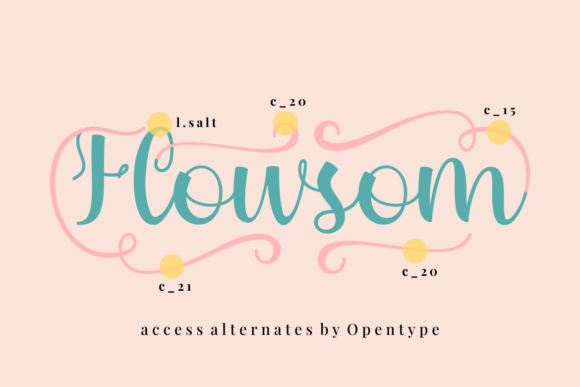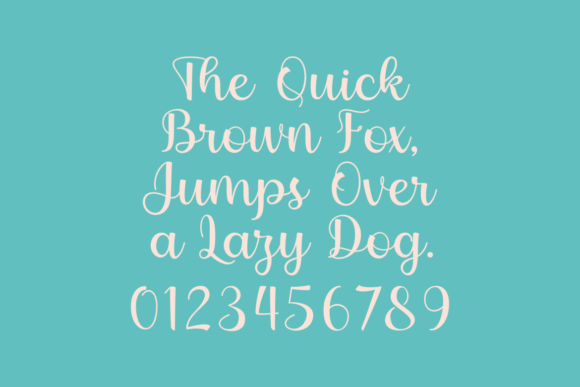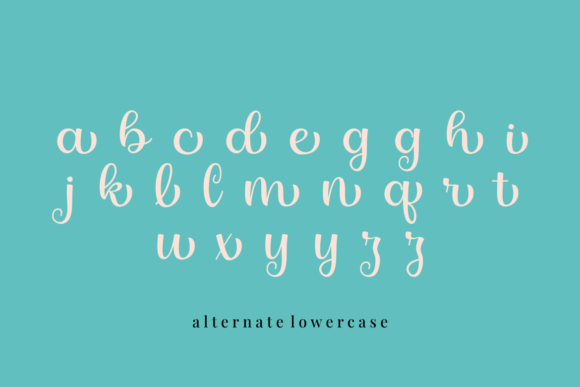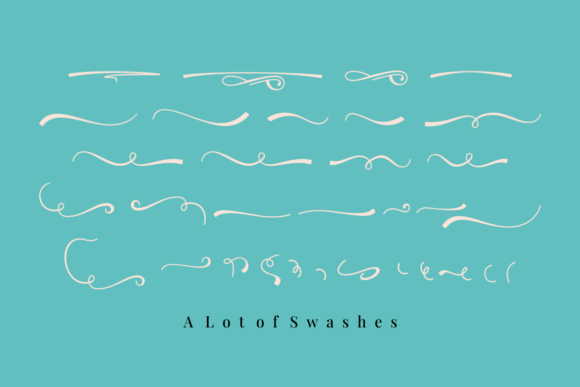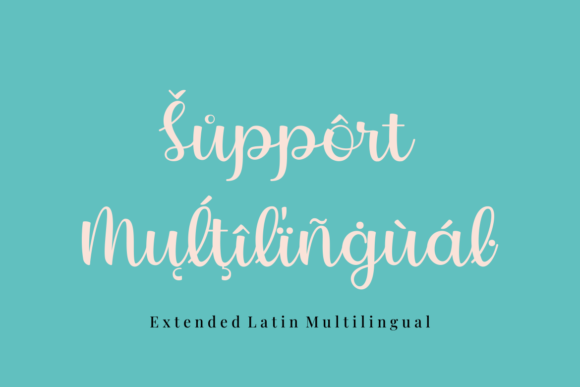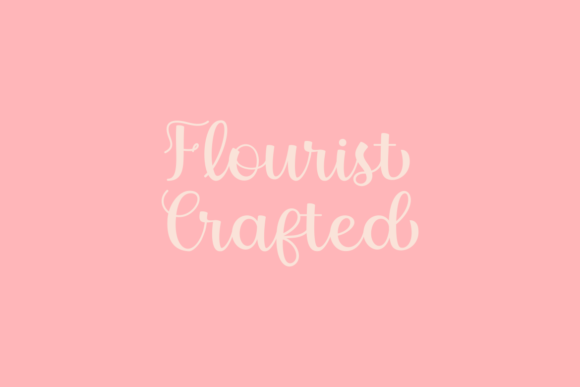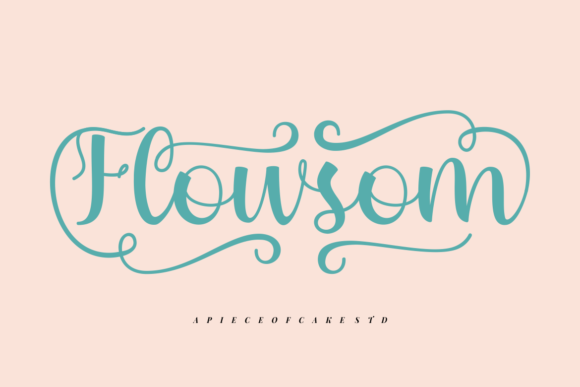
Introducing Flowsom Font: Elevate Your Designs with Elegant Script
In the world of typography, a font can make or break a design. For designers and crafters seeking to add a touch of sophistication and elegance to their projects, Flowsom Font is an exceptional choice. This beautiful script font, inspired by timeless classic calligraphy, brings a contemporary atmosphere and impeccable form to the table, making it perfect for a wide range of applications.
The Inspiration Behind Flowsom
Flowsom Font draws its inspiration from the classic calligraphy of the past, yet presents it with a modern twist. The result is a font that exudes elegance and refinement, making it suitable for designs that require a high level of sophistication. Whether you’re working on a branding project, packaging, or stationery, Flowsom Font is sure to impress.
Key Features of Flowsom Font
- PUA Encoding: One of the standout features of Flowsom Font is its PUA (Private Use Area) encoding. This means that accessing all the glyphs and swashes is incredibly easy, giving you the flexibility to experiment with different styles and variations.
- Elegant Script: The font’s script style is both elegant and contemporary, making it perfect for designs that require a touch of sophistication.
- Impeccable Form: Each letterform in Flowsom Font has been carefully crafted to ensure that it is not only beautiful but also highly legible.
- Contemporary Atmosphere: Despite being inspired by classic calligraphy, Flowsom Font has a distinctly modern feel, making it suitable for a wide range of design applications.
Use Cases for Flowsom Font
Flowsom Font’s versatility makes it suitable for a variety of design projects, including:
- Branding and Logos: Create a lasting impression with a logo that exudes elegance and sophistication.
- Stationery and Packaging: Add a touch of refinement to your stationery, packaging, or product labels.
- Web Design: Use Flowsom Font to create stunning website headers, titles, or quotes that will leave a lasting impression on your visitors.
- Digital Art and Crafting: For crafters and digital artists, Flowsom Font can be used to add a touch of elegance to digital art, planners, or journals.
Tips for Getting the Most Out of Flowsom Font
To maximize the potential of Flowsom Font, consider the following tips:
- Experiment with Swashes: Take advantage of the font’s PUA encoding to experiment with different swashes and glyphs, adding a unique touch to your designs.
- Mix and Match: Don’t be afraid to combine Flowsom Font with other fonts to create a unique and visually appealing design.
- Pay Attention to Legibility: While Flowsom Font is highly legible, ensure that your design choices don’t compromise readability.
| Font Name | Flowsom Font |
| Author | a piece of cake |
Flowsom Font is a beautiful, elegant script font that brings a touch of sophistication and refinement to any design project. With its PUA encoding, impeccable form, and contemporary atmosphere, it’s an excellent choice for designers and crafters looking to elevate their designs. Whether you’re working on a branding project, digital art, or stationery, Flowsom Font is sure to impress.